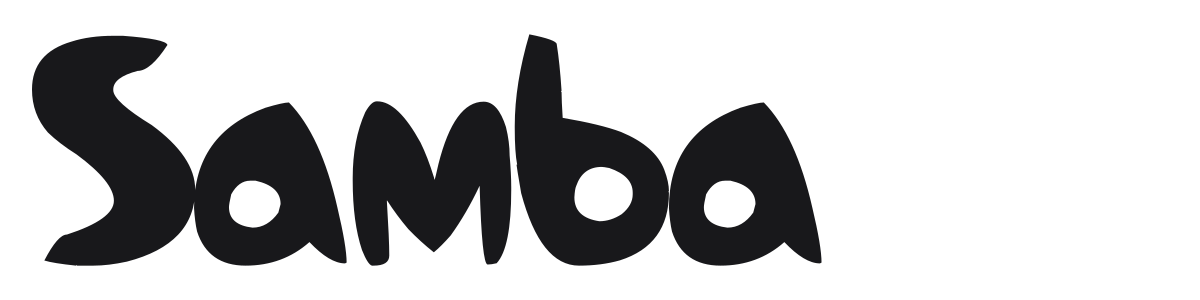
Samba
by Mahdi Salah
Samba is a bold, rounded display face by Mahdi Salah with heavy letterforms that carry a playful, slightly quirky personality. The chunky proportions and soft curves keep things fun and approachable, making it a good match for headlines, packaging, and event branding where you want type that feels energetic without being aggressive.